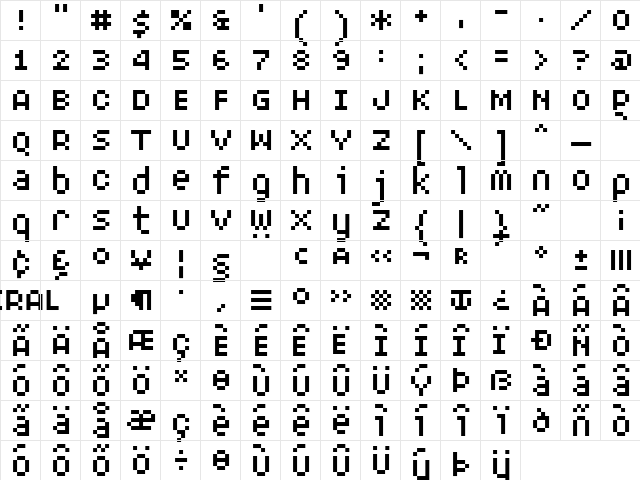
XERXES SIX
Style: SIX
XERXES Family
Complete XERXES SIX glyph index. Displaying only characters natively supported by XERXES SIX font.
Design Context for XERXES
XERXES is a composed and adaptable typeface that performs quietly and consistently across a wide range of design contexts.